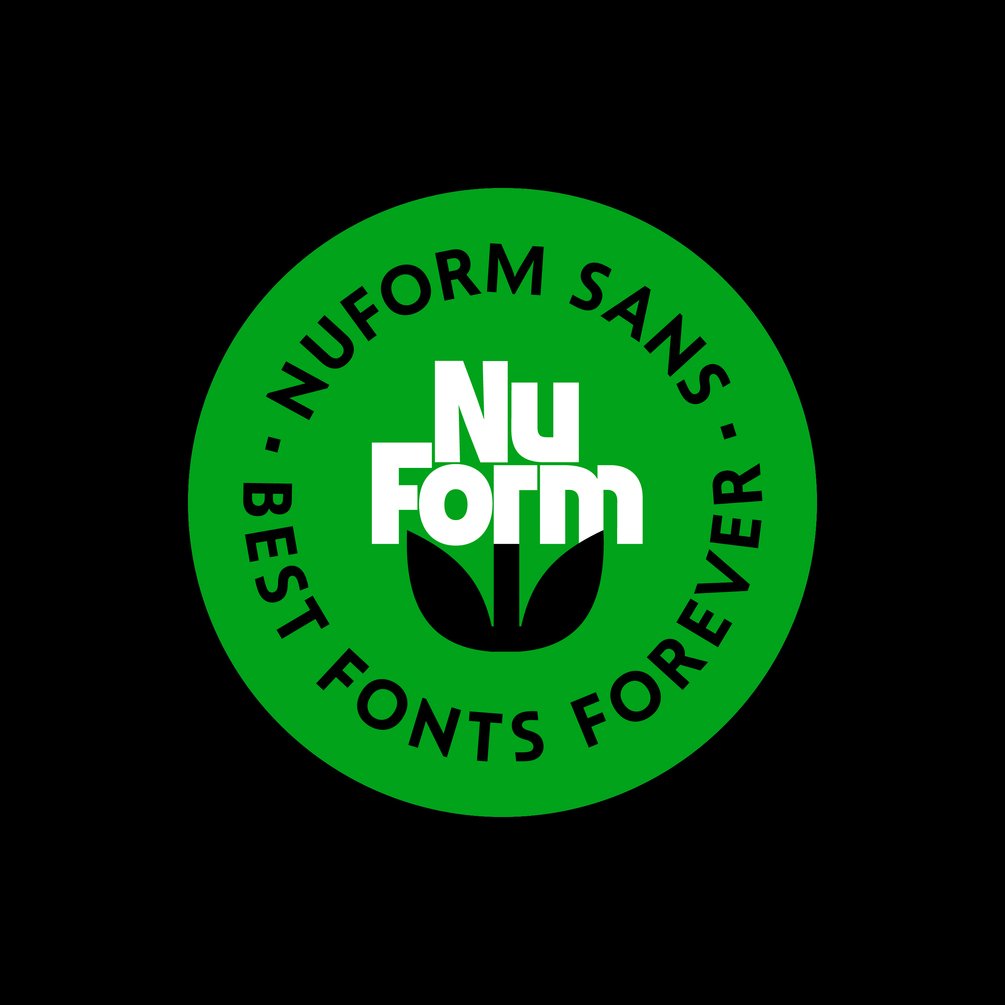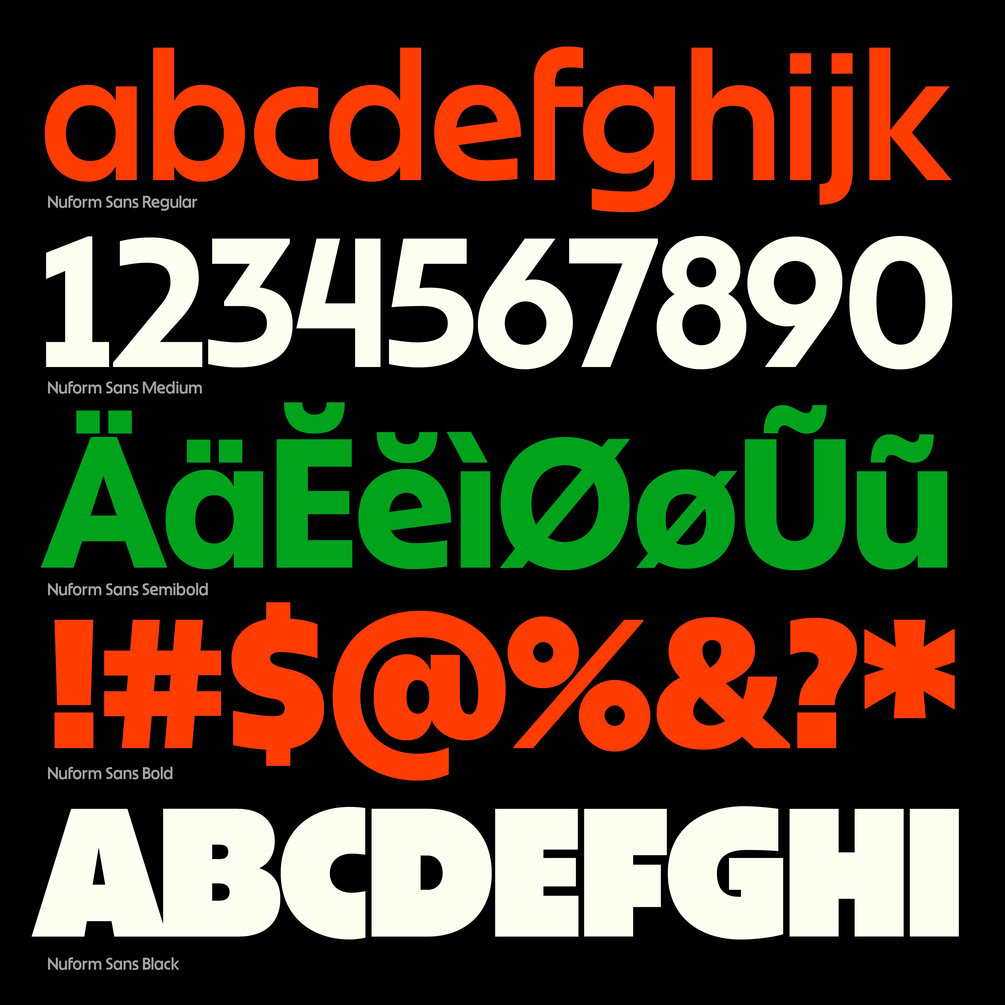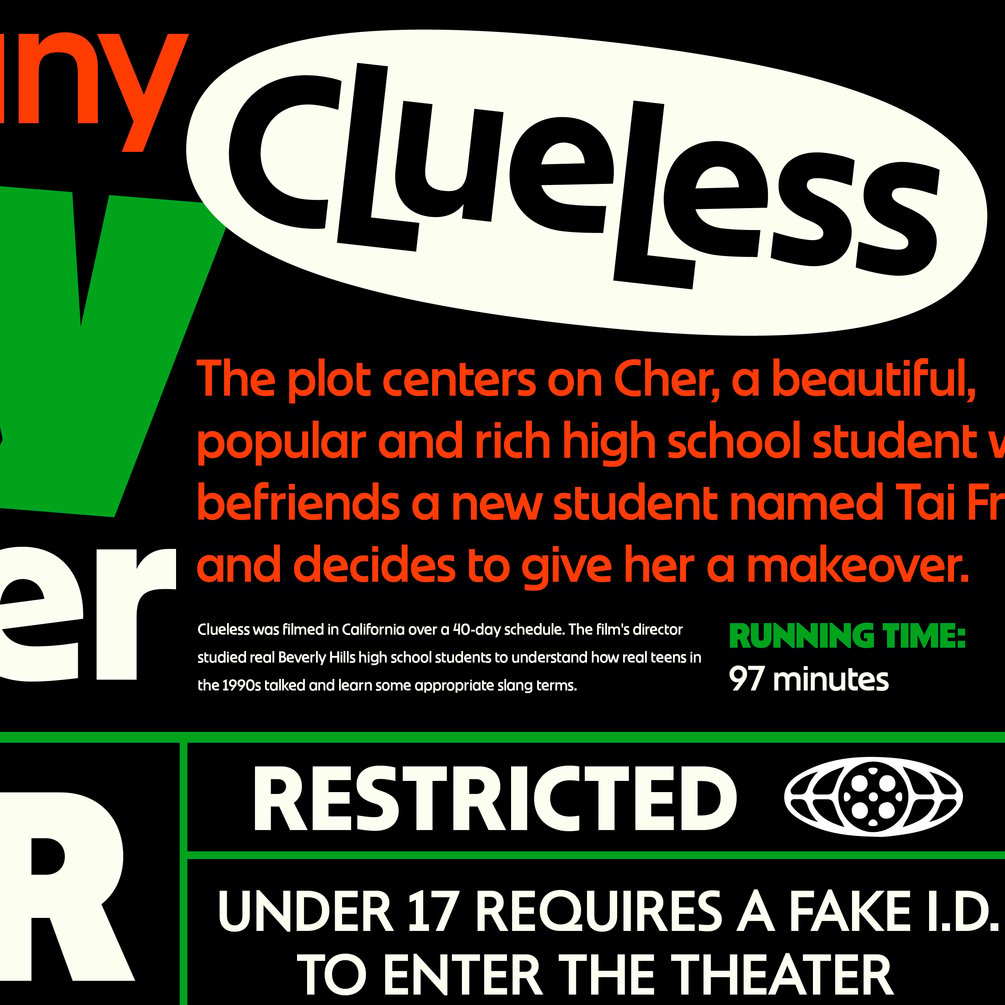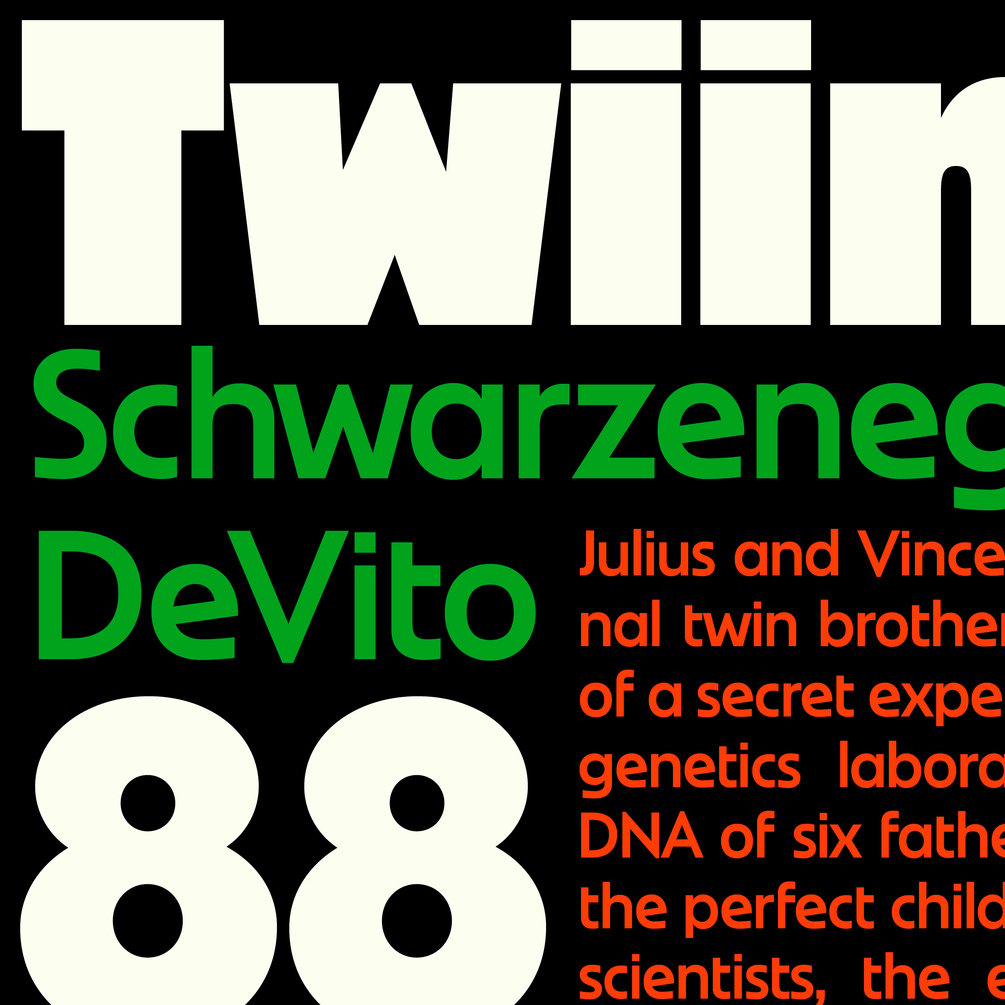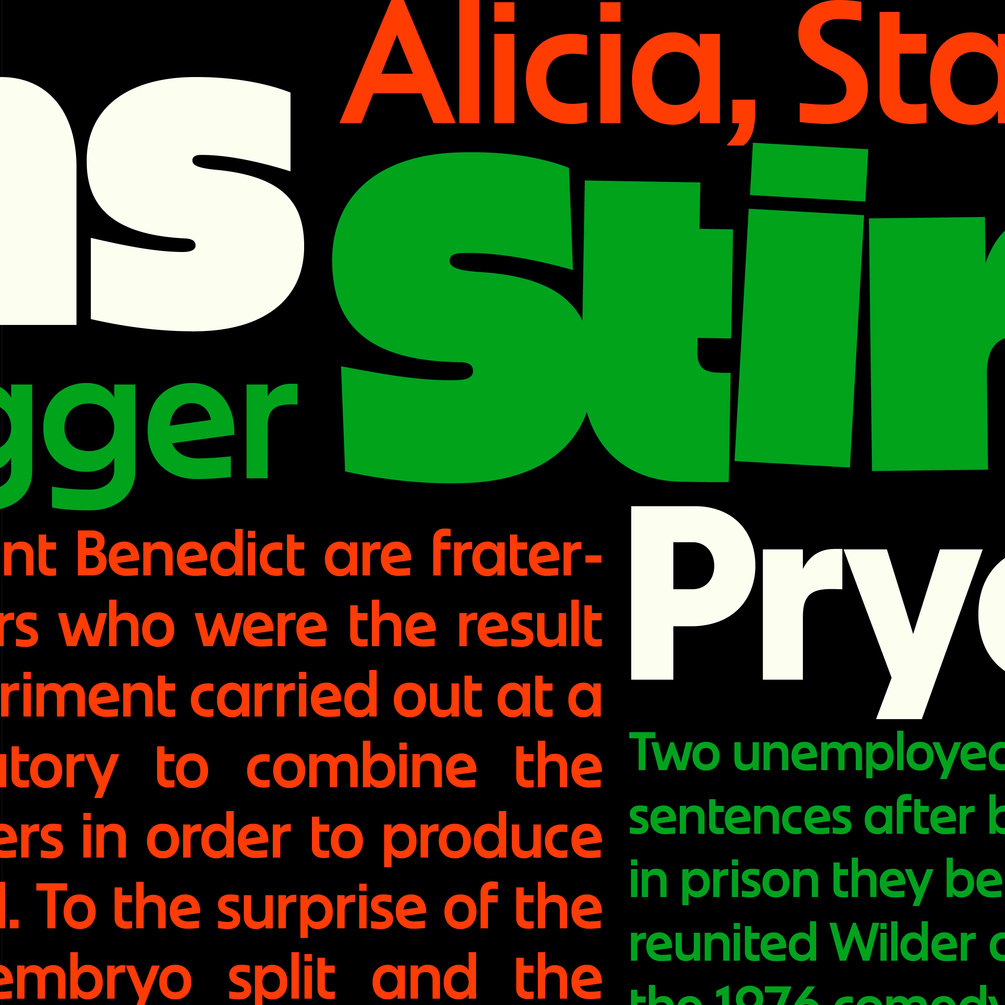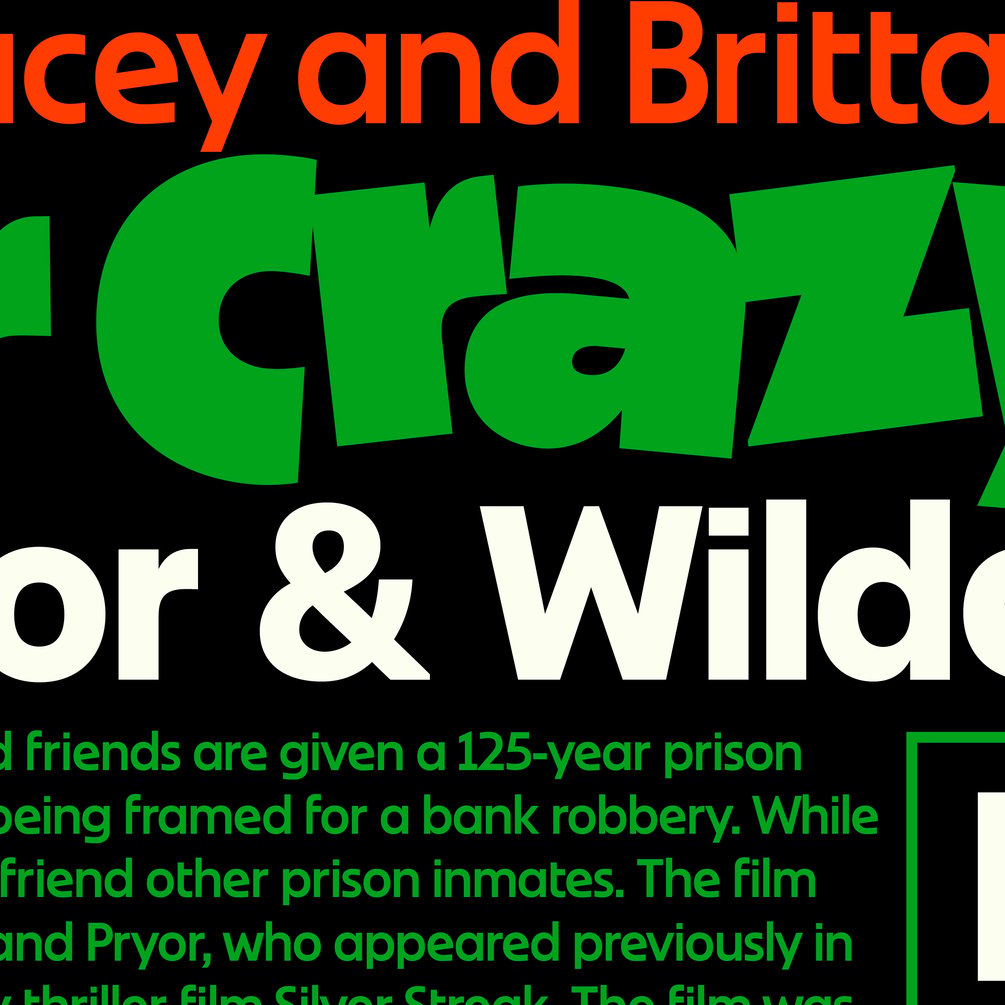
NuForm Sans (4-7 user license)
Nuform Sans is a dependable friend who's always there for you. A 5 weight family designed to compliment its display counterpart: OZIK, Nuform Sans is capable of stealing the show or help in any situation with its subtle charm. Whatever the task Nuform Sans has your back and will be there to do the heavy lifting.
5 weights
Extended Latin